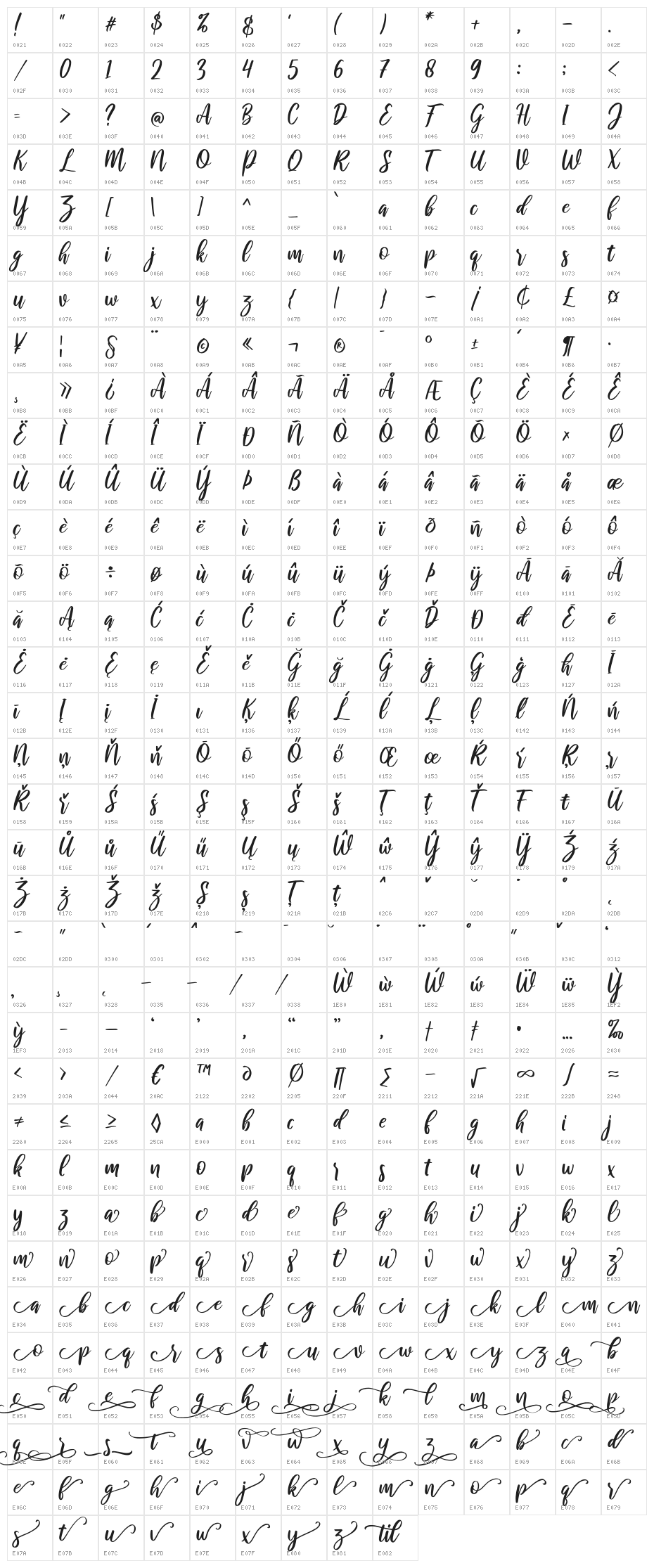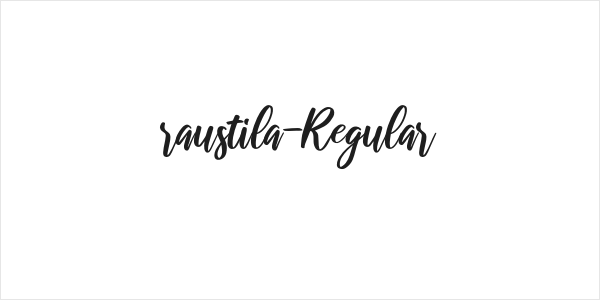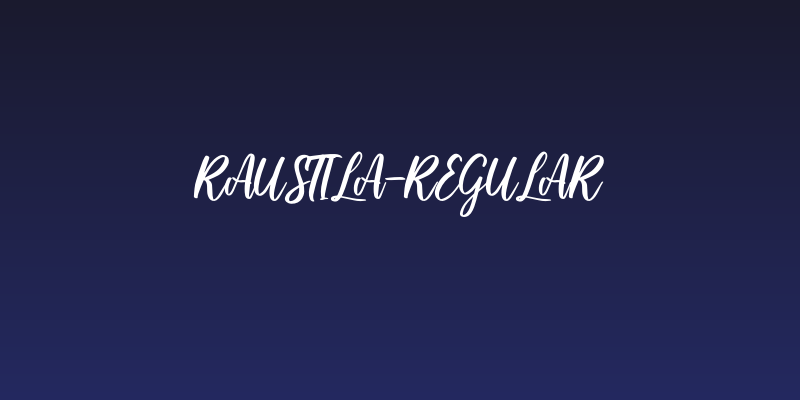
raustila-Regular Font
raustila-Regular Description
This font features a dynamic and fluid script style, characterized by its elegant and flowing letterforms. The strokes are bold and confident, with a slight slant that adds a sense of movement and grace. Each character is distinct, yet they connect seamlessly, creating a harmonious and cohesive appearance. The uppercase letters are particularly striking, with their sweeping curves and loops, while the lowercase letters maintain a consistent rhythm and balance. The numerals and special characters are crafted with the same attention to detail, ensuring versatility across various applications.